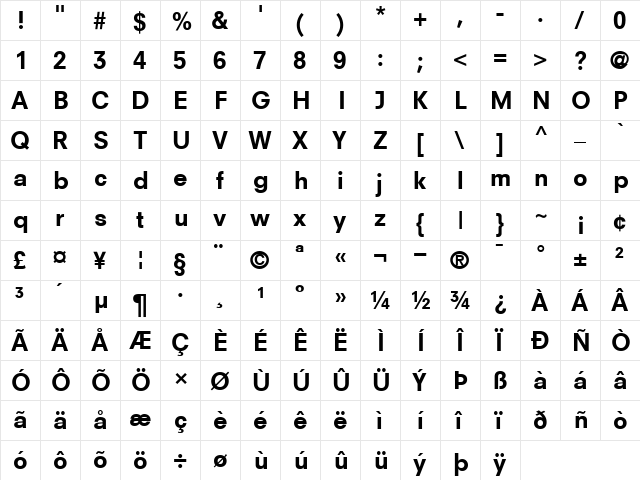
Design Context for NeuzeitSHeavy-Book Typeface
NeuzeitSHeavy-Book takes a measured approach to typography — its balanced proportions and neutral character make it a reliable workhorse for both digital and print work.
Pro Tip: Use NeuzeitSHeavy-Book in both headline and body roles to test its range before committing to a single application.